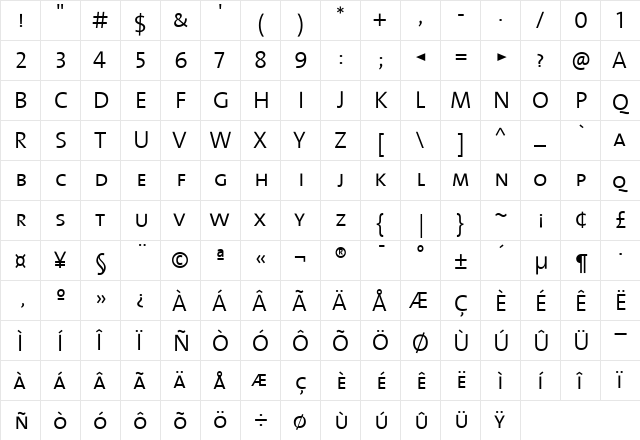
The Sans Semi Light- Regular
Regular · Copr. Luc as de Groot  ·
Foundry Copr. Luc as de Groot
Design Context for The Sans Semi Light- Typeface
The Sans Semi Light- is a composed and adaptable typeface that performs quietly and consistently across a wide range of design contexts. Its slender proportions lend an understated elegance to any composition.